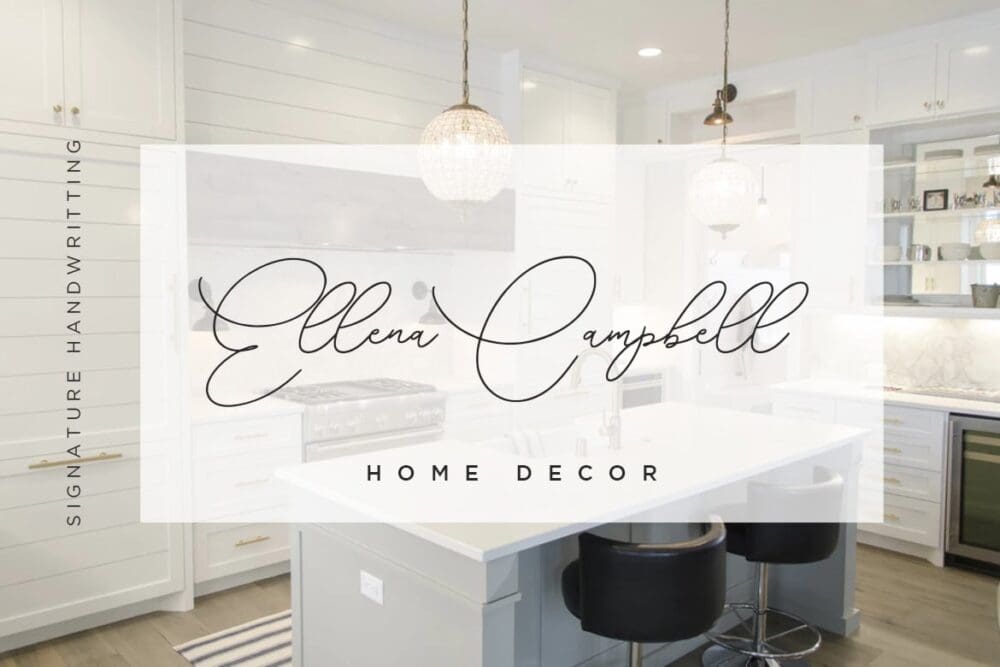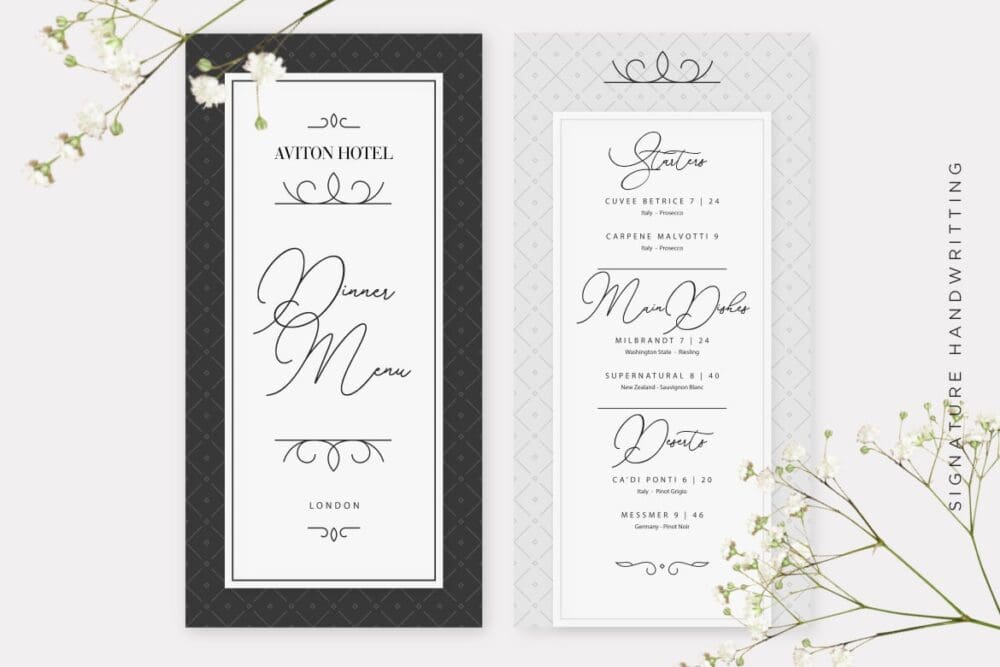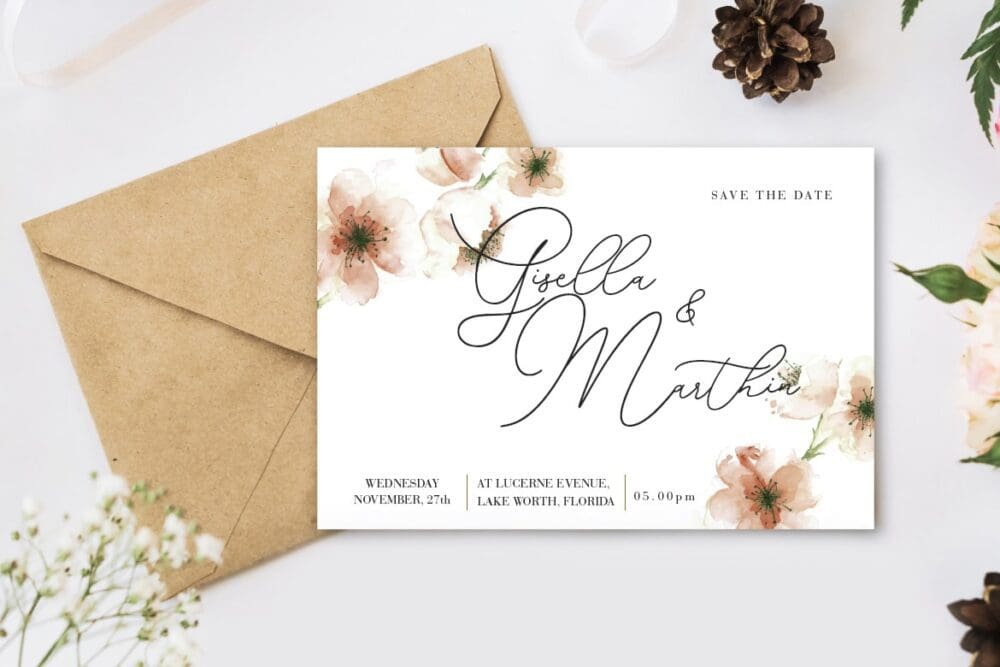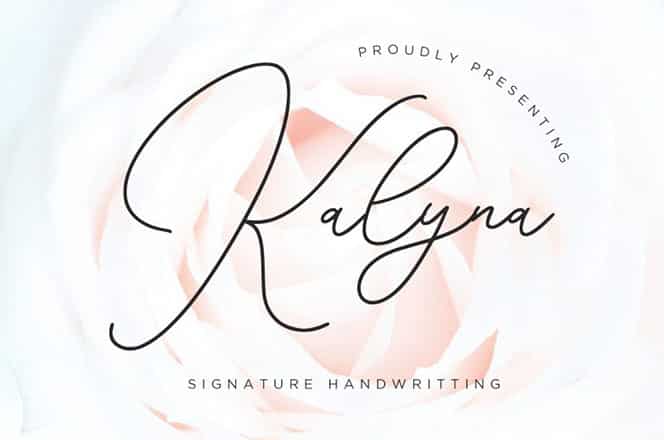
Kalyna Signature Handwritten Font
Kalyna is a Handwritten Signature Font with personal touch handmade taste. Kalyna is perfect for branding projects, logos, wedding designs, social media posts, advertisements, and any projects that need handwriting taste.